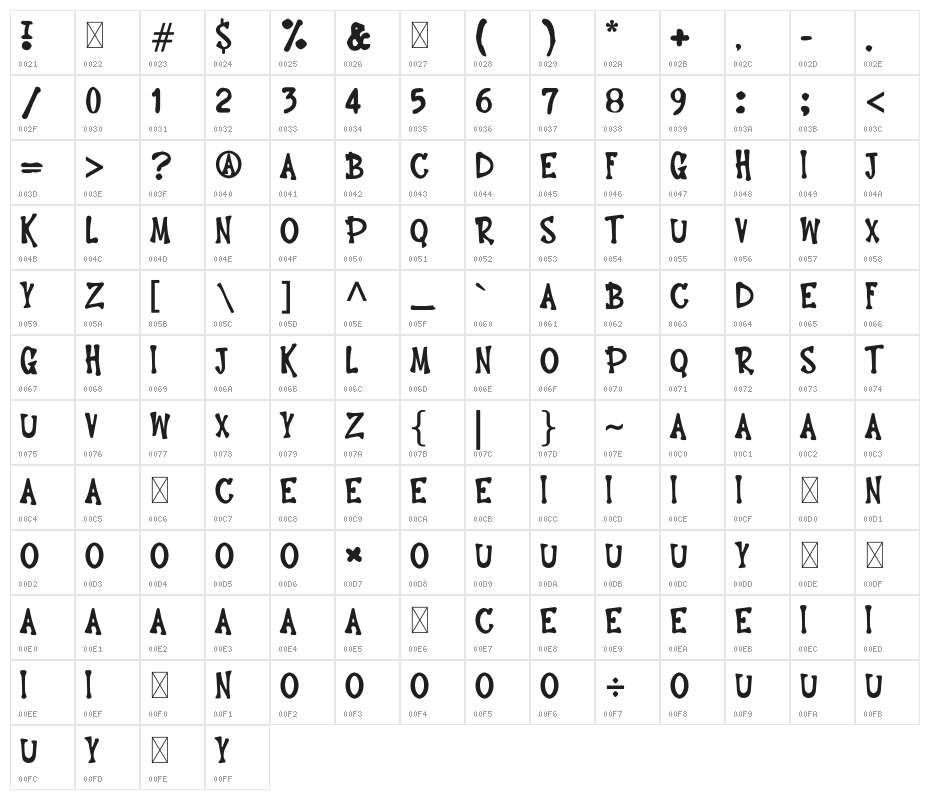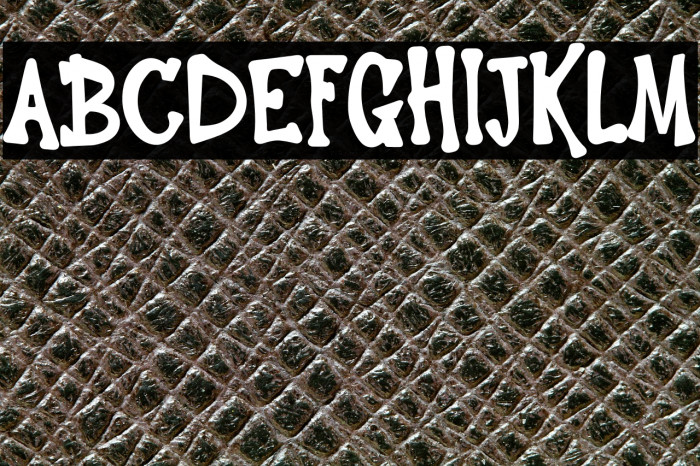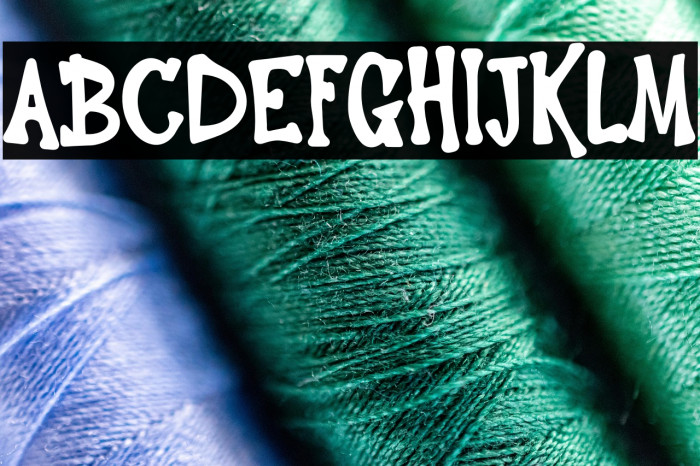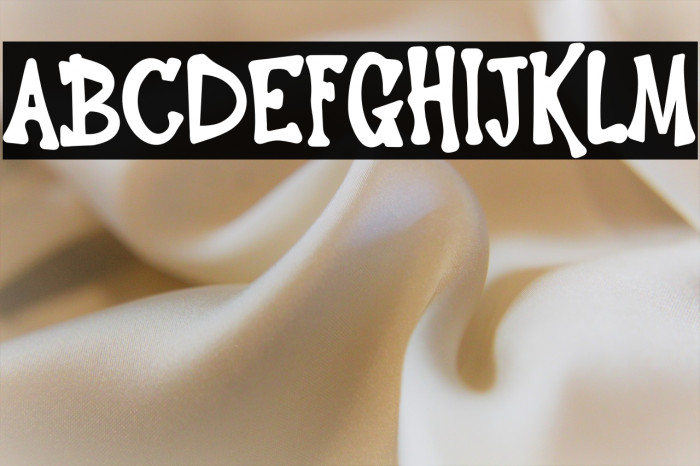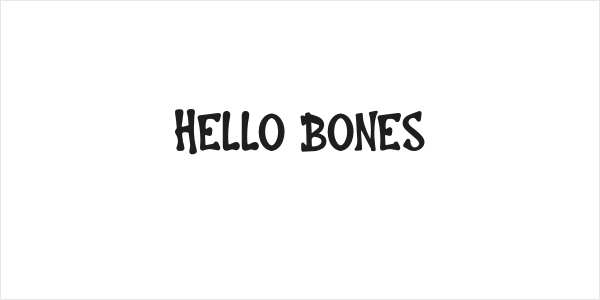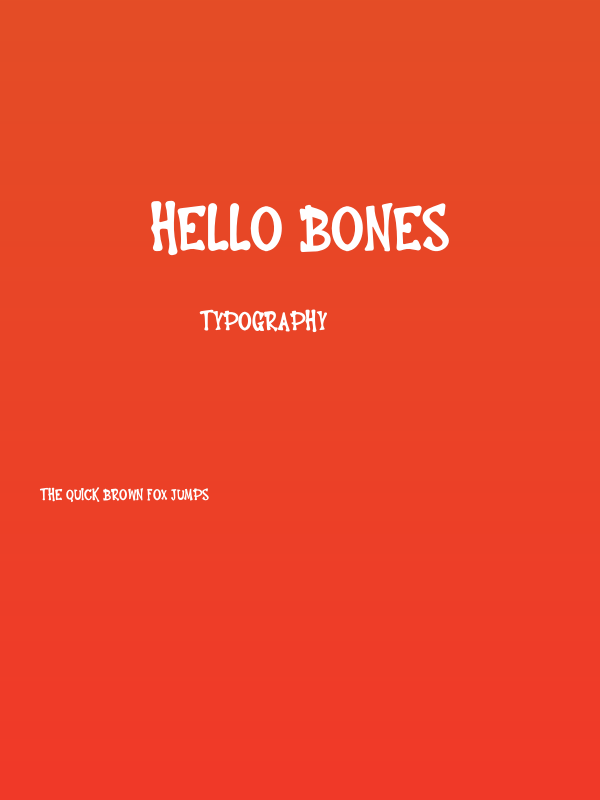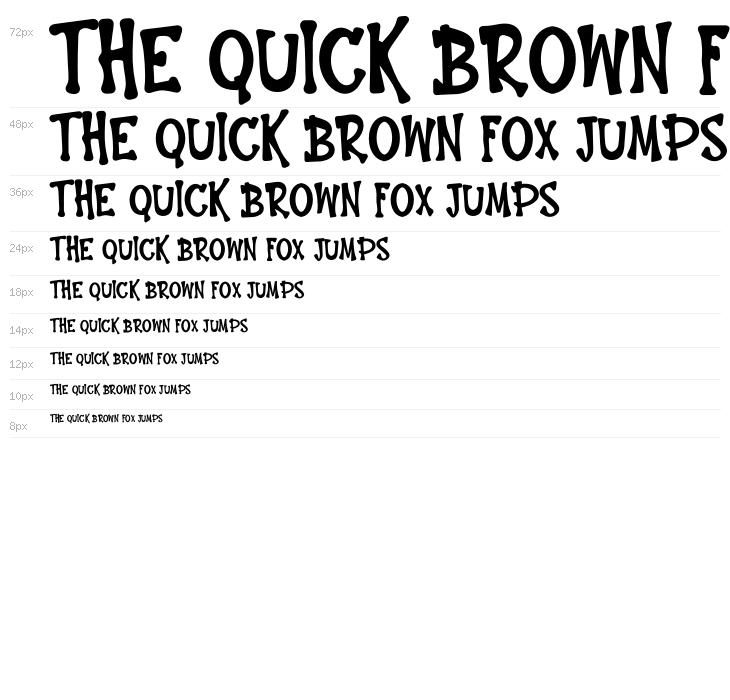
Hello Bones Font
Hello Bones Description
Playful, hand-drawn font with irregular, bone-like strokes and exaggerated curves, giving it a quirky and whimsical appearance. The characters are bold and have uneven line thickness, contributing to a casual, decorative style.
| Overall Style | Decorative, Playful, Whimsical |
| Use Case | Headlines, Posters, Logos, Event Invitations |
| Proposed Projects | Halloween posters, children's book titles, party invitations, themed event graphics, playful branding. |